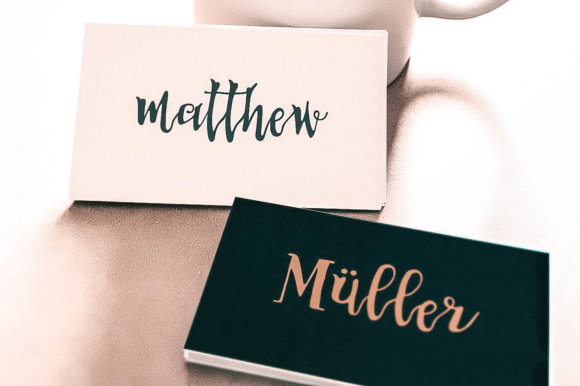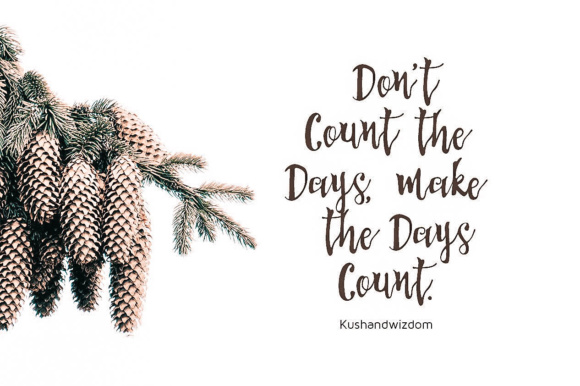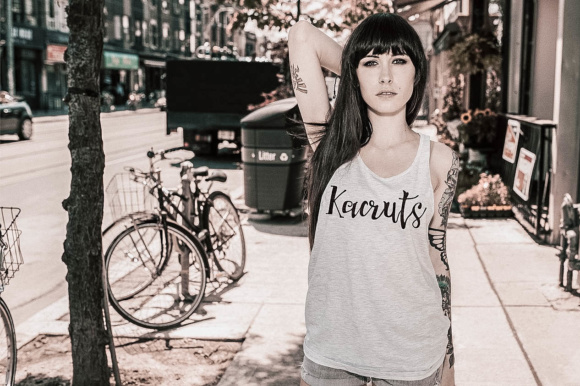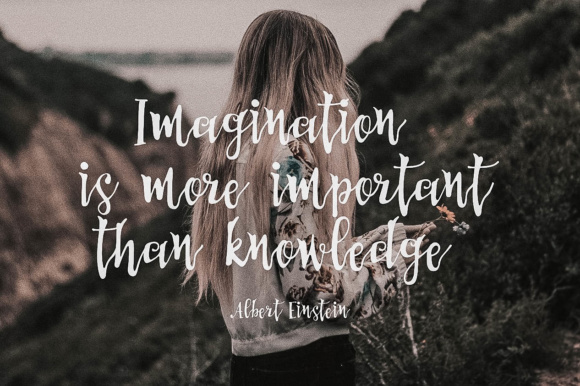
Discover the Charm of Corets Font: Elevate Your Designs with a Cutesy, Handwritten Script
In the world of typography, fonts play a crucial role in conveying the tone and personality of a design. For designers and crafters looking to add a touch of whimsy and style to their projects, Corets Font is an excellent choice. This cutesy, handwritten script font is designed to bring a relaxed yet stylish look to any design, making it perfect for a wide range of applications.
The Characteristics of Corets Font
Corets Font is a beautifully crafted handwritten script font that boasts a unique and charming personality. Its cutesy and playful nature makes it an ideal choice for designers who want to add a touch of fun and whimsy to their designs. The font’s handwritten style gives it a personal and approachable feel, making it perfect for designs that require a more relaxed and casual tone.
One of the standout features of Corets Font is its versatility. This font looks phenomenal in print works, and its stylish and elegant appearance makes it perfect for a wide range of design applications, from branding and packaging to invitations and greeting cards.
Why Choose Corets Font?
So, why should designers and crafters choose Corets Font for their projects? Here are just a few reasons:
- Unique and Charming Personality: Corets Font has a one-of-a-kind personality that sets it apart from other fonts. Its cutesy and playful nature makes it perfect for designs that require a touch of whimsy and fun.
- Versatility: Corets Font is incredibly versatile and can be used in a wide range of design applications, from print works to digital designs.
- Easy to Read: Despite its playful nature, Corets Font is incredibly easy to read, making it perfect for designs that require a clear and concise message.
- High-Quality Design: Corets Font is designed to the highest standards, ensuring that it looks great in any design application.
How to Use Corets Font in Your Designs
Using Corets Font in your designs is easy. Here are a few tips to get you started:
- Pair it with Bold Fonts: Corets Font looks great when paired with bold fonts. Try pairing it with a bold sans-serif font for a stylish and modern look.
- Use it in Print Works: Corets Font looks phenomenal in print works. Try using it in brochures, flyers, and posters for a unique and eye-catching design.
- Add it to Your Branding: Corets Font is perfect for branding and packaging designs. Try using it in your logo or packaging design for a unique and stylish look.
In conclusion, Corets Font is a cutesy, handwritten script font that can add a ton of whimsy and style to your projects. Its unique and charming personality, versatility, and high-quality design make it perfect for a wide range of design applications. Whether you’re a designer or crafter looking to add a touch of fun and whimsy to your designs, Corets Font is an excellent choice. So why not give it a try and see how it can elevate your designs?
With Corets Font, you can add a touch of personality and style to your designs, making them stand out from the crowd. So, don’t settle for boring and generic fonts. Choose Corets Font for your next design project and experience the difference for yourself.